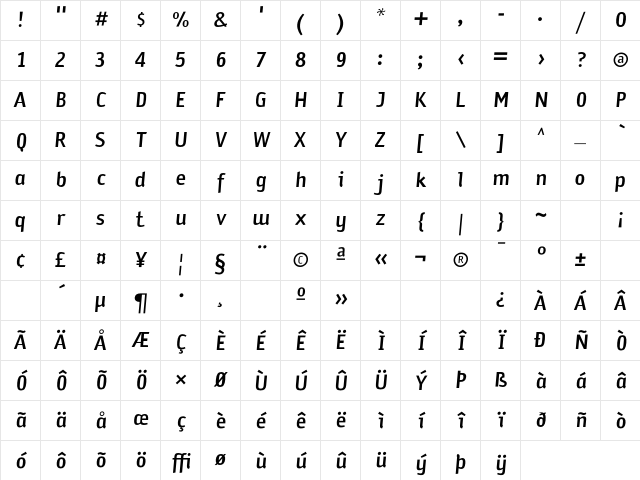
Complete Sodium Italic glyph index. Displaying only characters natively supported by Sodium Italic font.
Sodium is a composed and adaptable typeface that performs quietly and consistently across a wide range of design contexts. The slanted form adds forward momentum and visual energy.